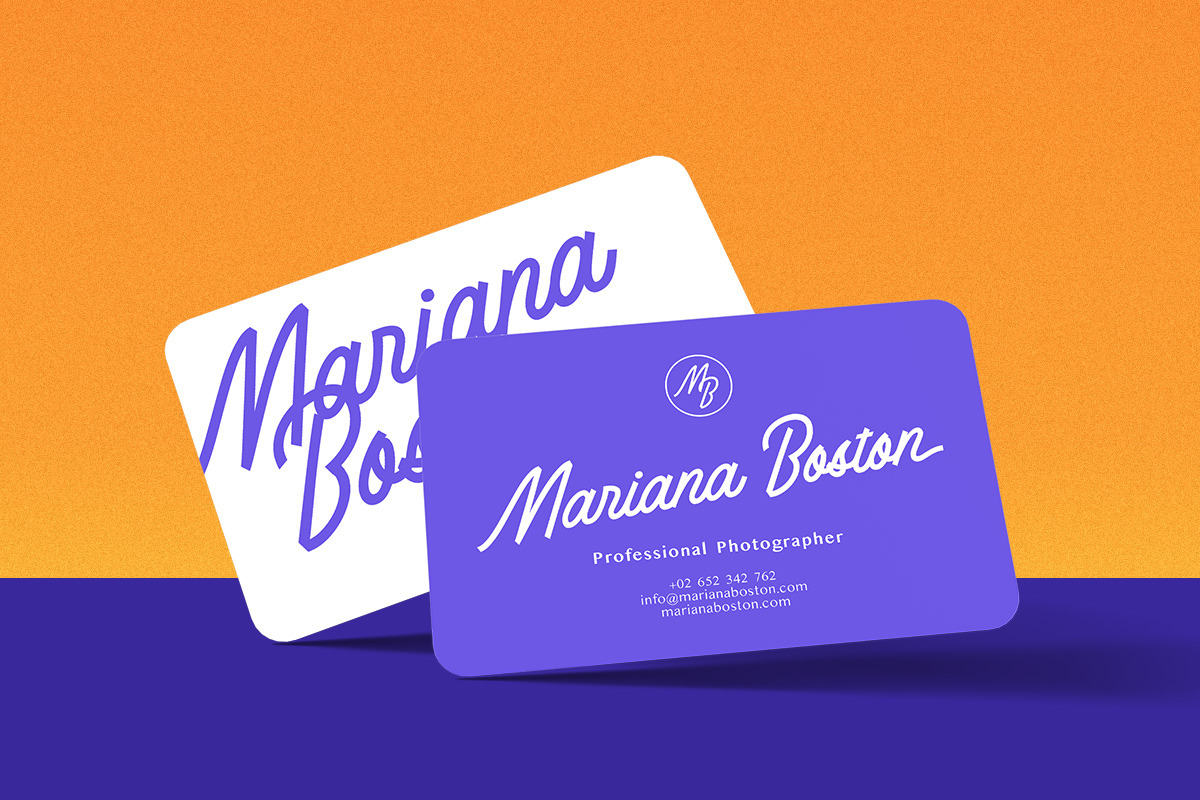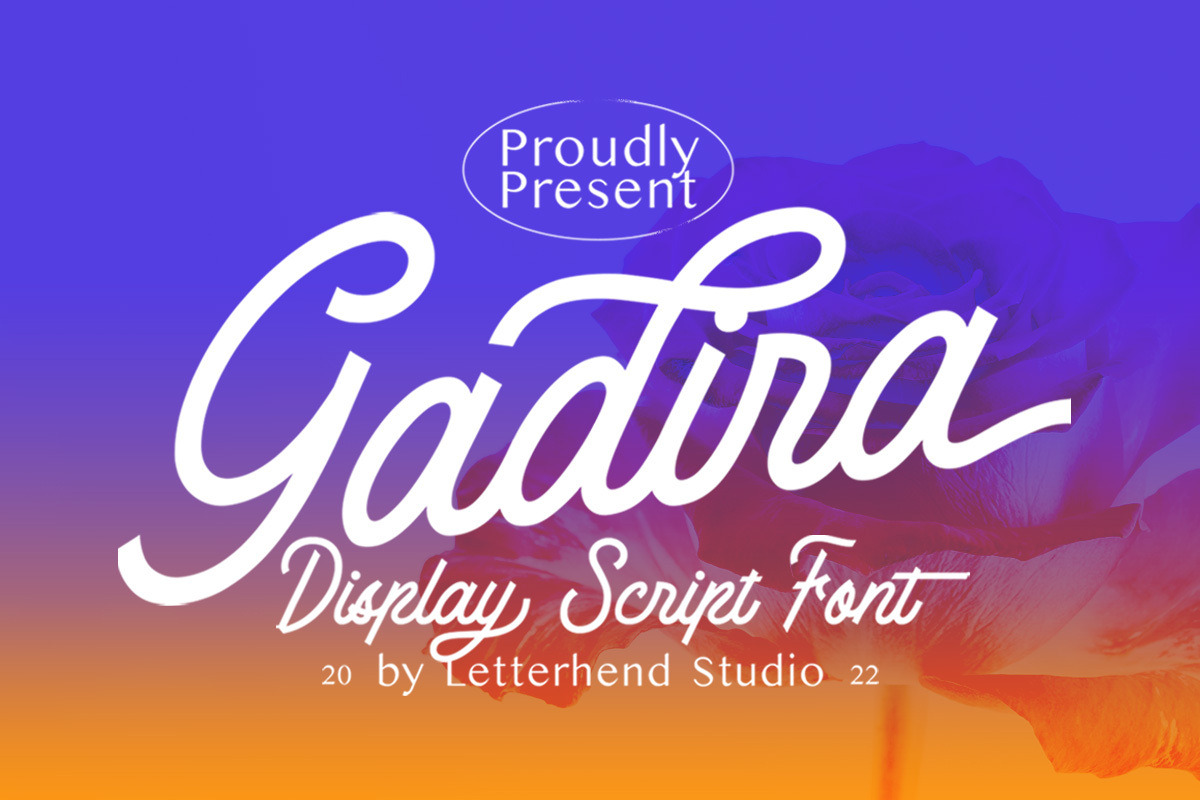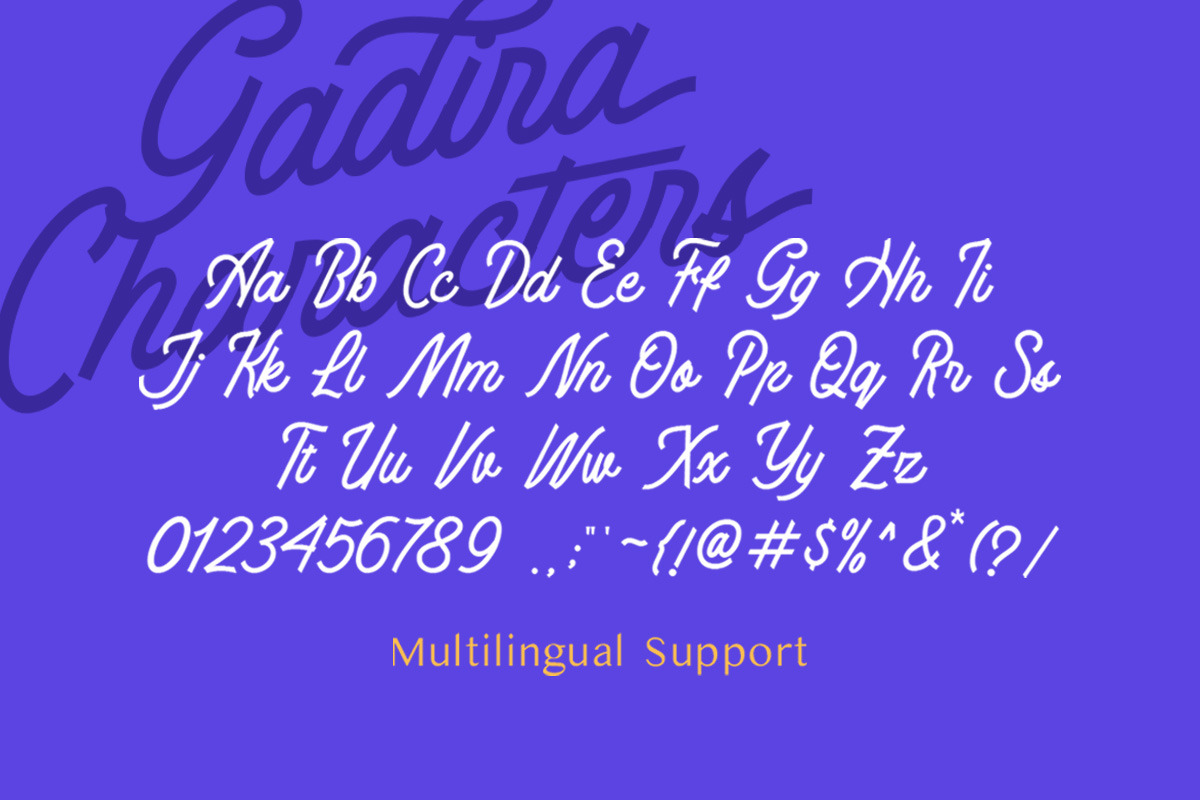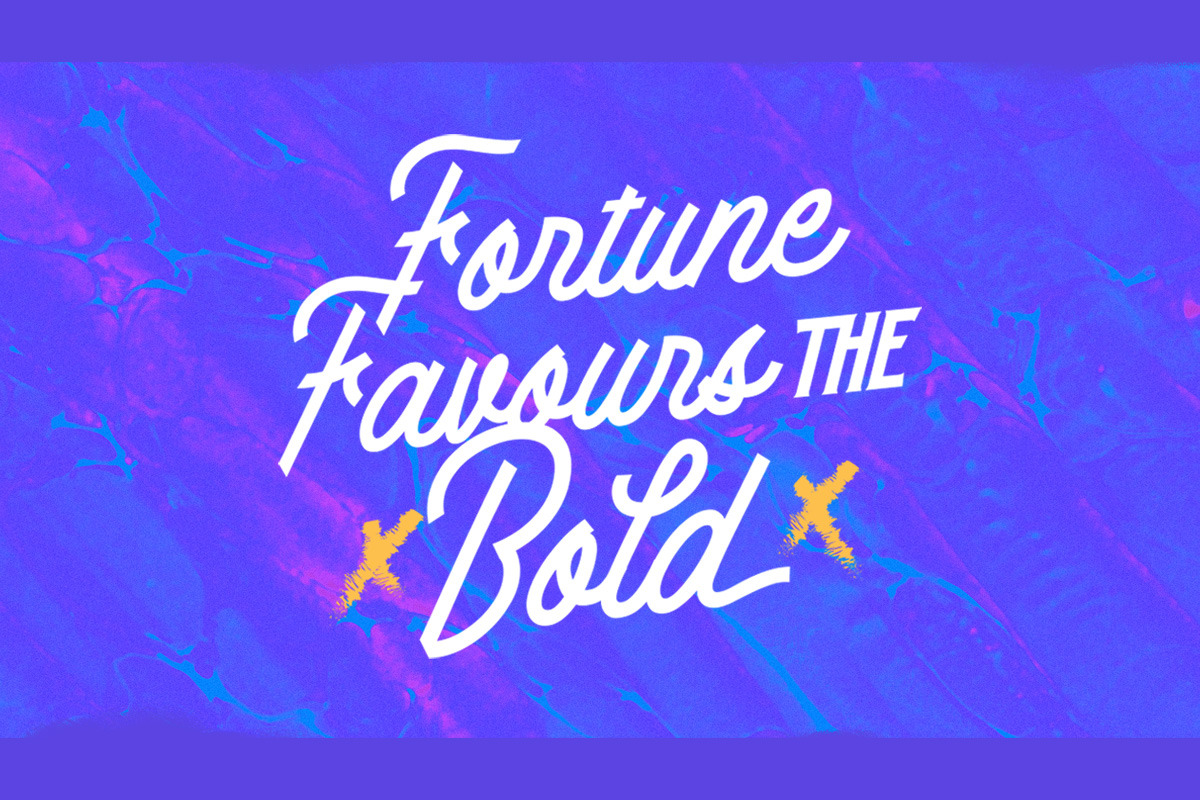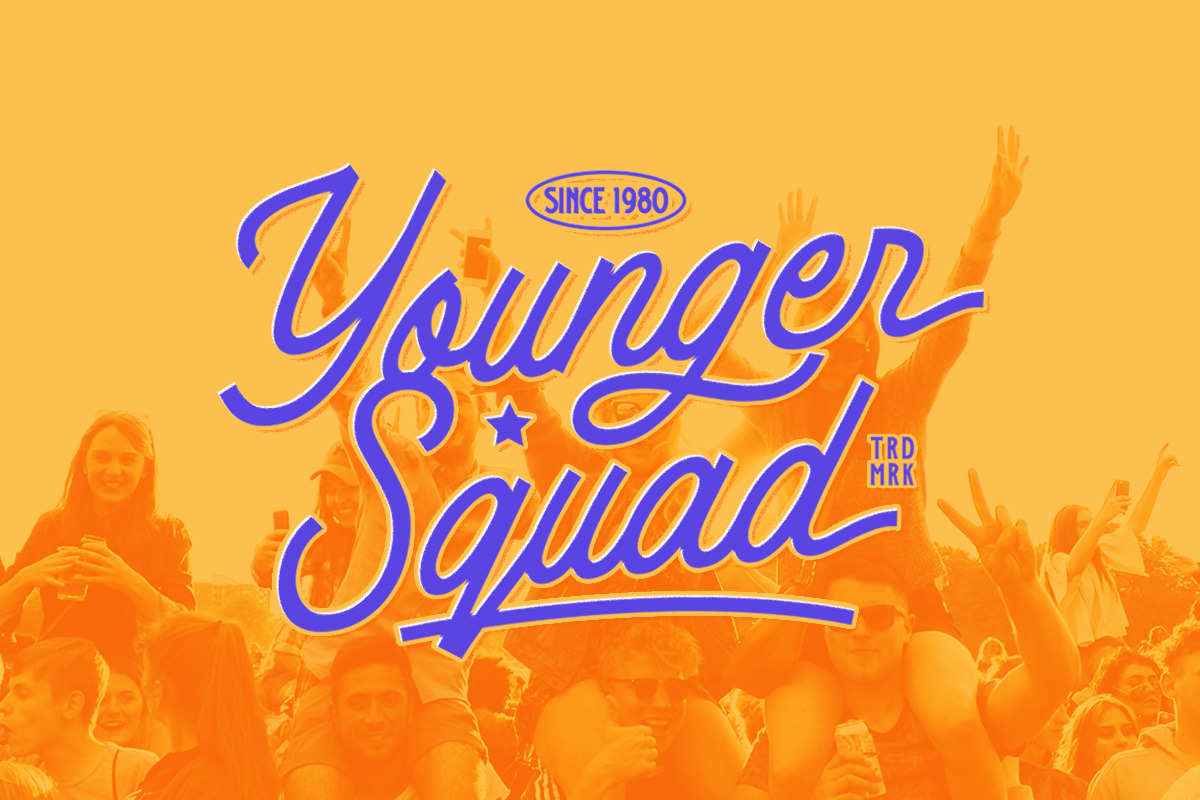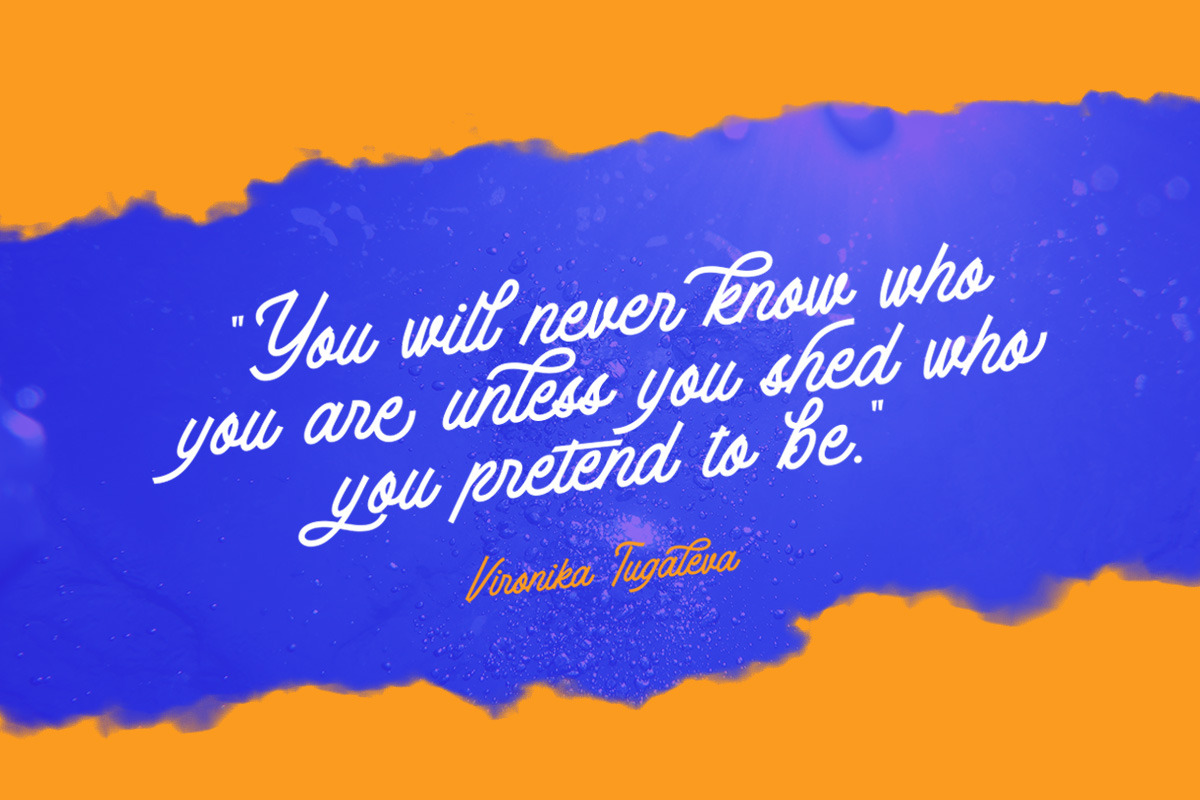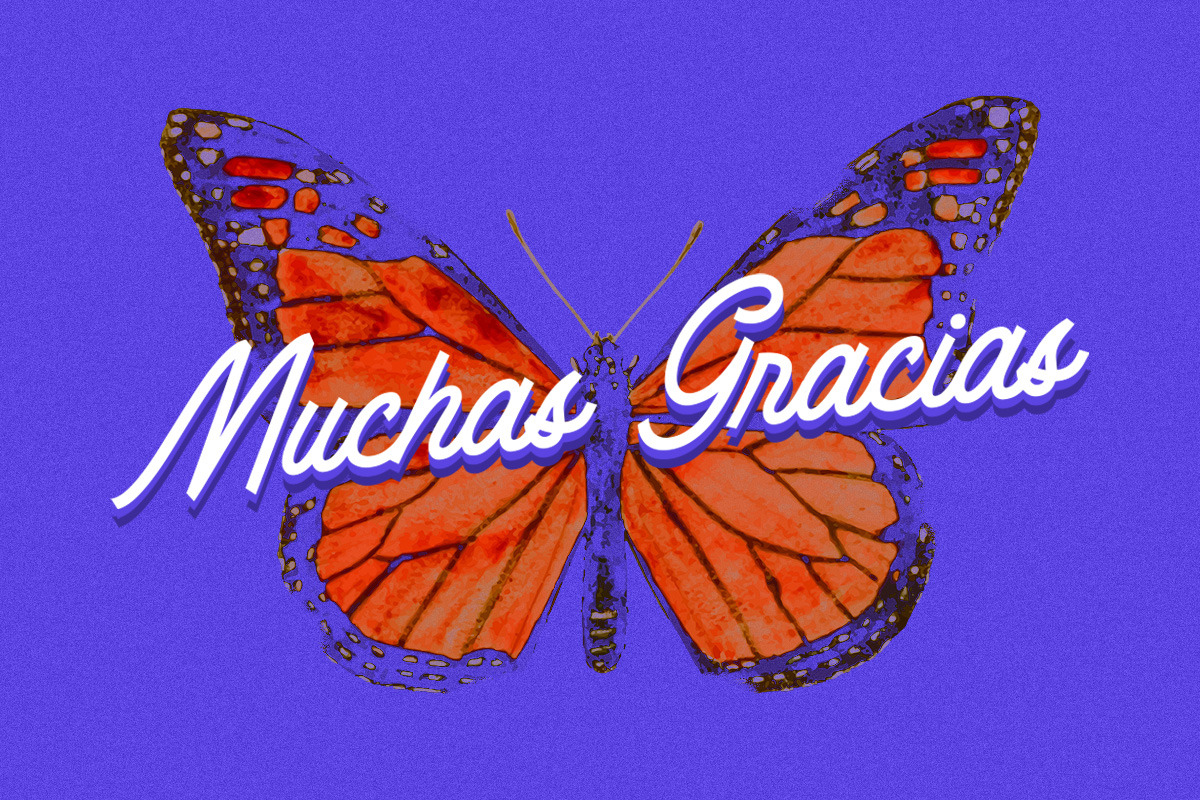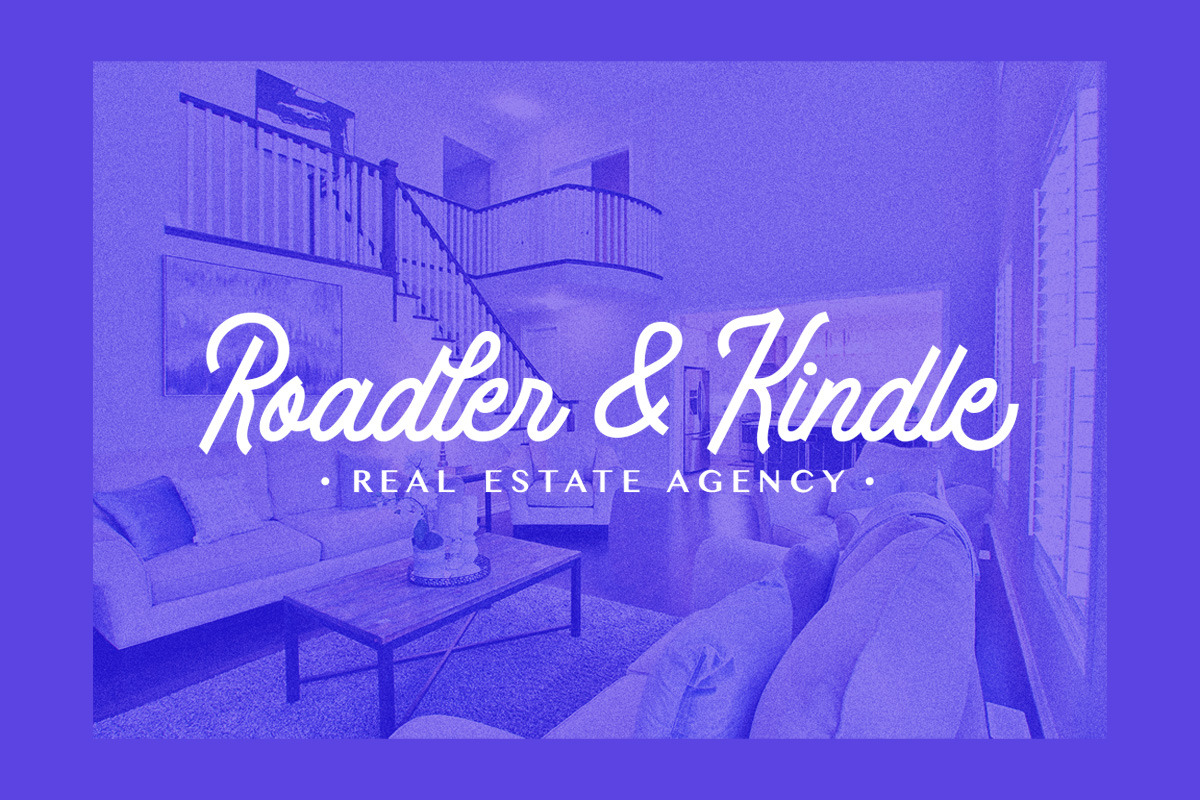
Gadira - Display Script Font
Gadira is a casual and free style script display font. This font perfectly made to be applied especially in logo, and the other various formal forms such as invitations, labels, logos, magazines, books, greeting / wedding cards, packaging, fashion, make up, stationery, novels, labels or any type of advertising purpose.
- alternates
- swashes - PUA encoded